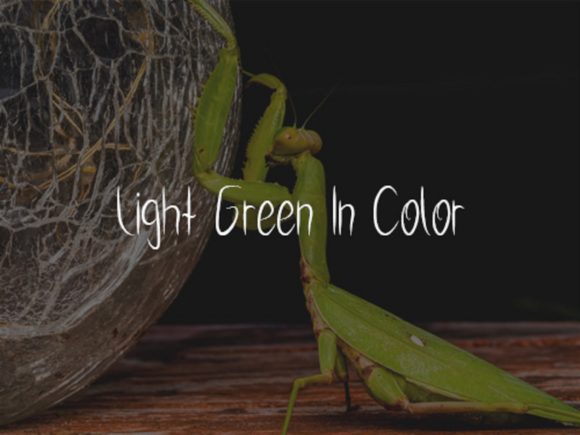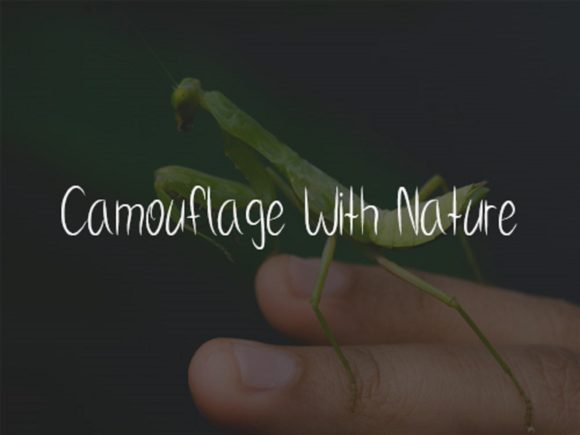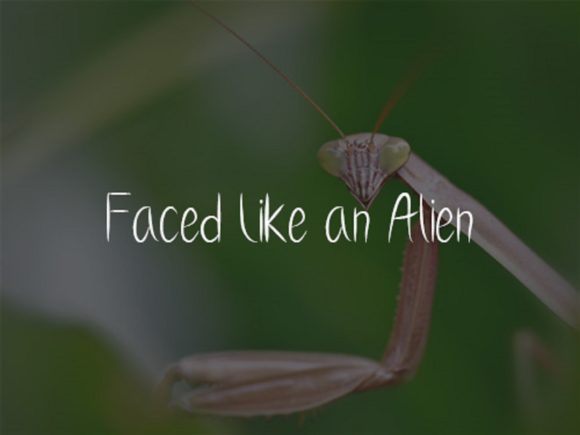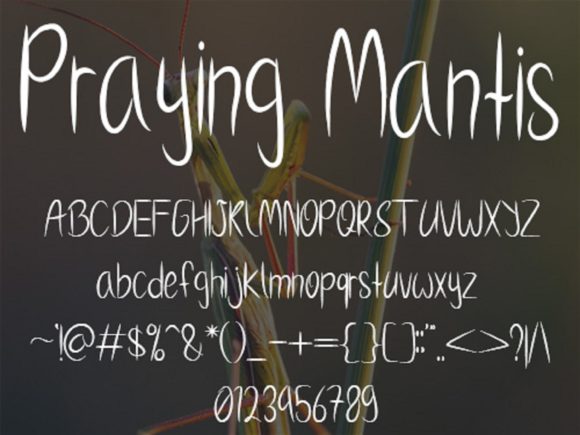
About Praying Mantis Font
Praying Mantis is a cute and relaxed handwritten font. Whatever the topic, this font will be a wonderful asset to your font library, as it has the potential to enhance any creation.